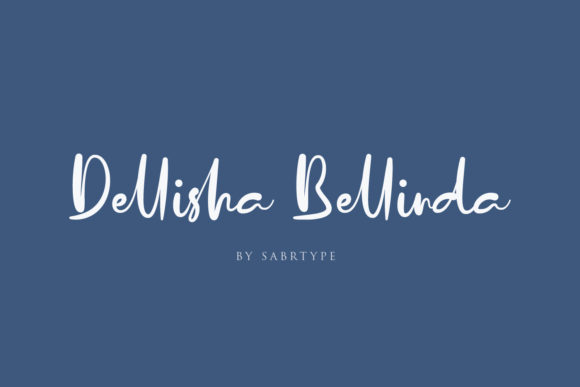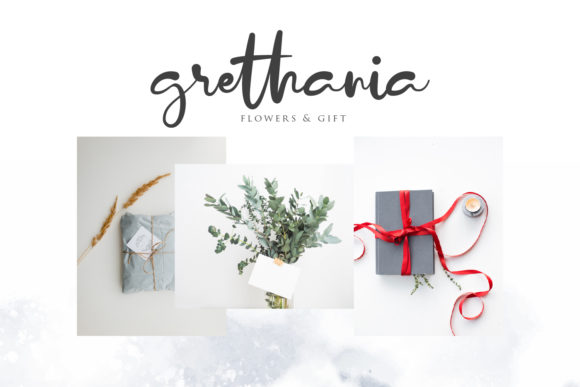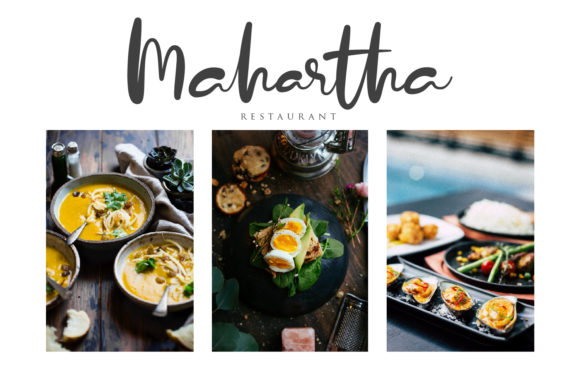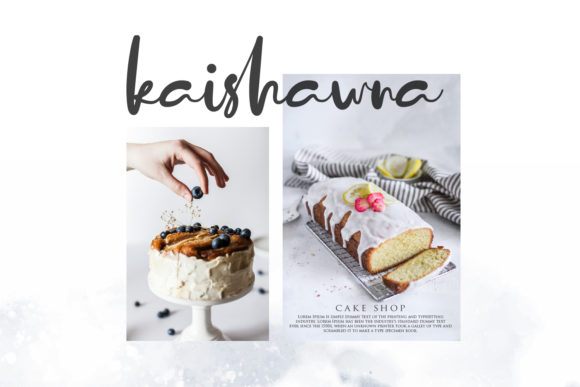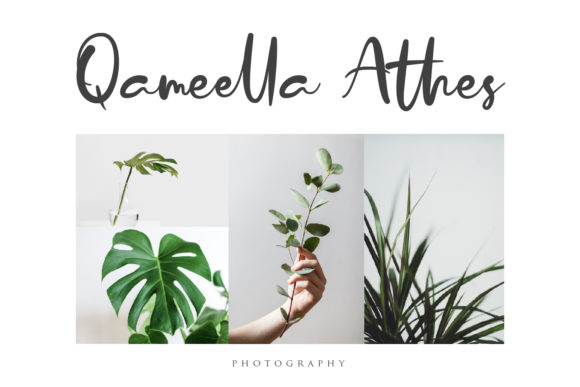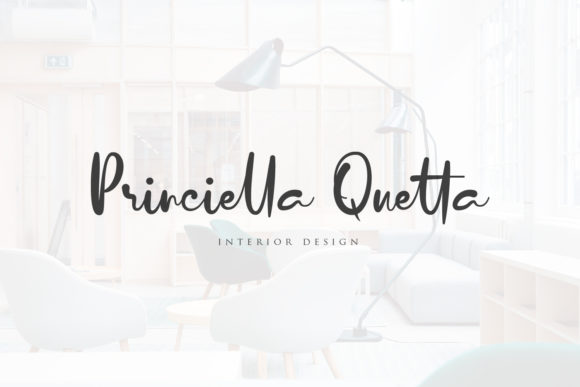
Introduction to Dalillah Font
Have you ever found yourself scrolling through design inspiration boards, pinning the perfect typography, and imagining how it would elevate your next creative project? This is exactly what happened to me when I stumbled upon the Dalillah Font. Its unique, handwritten charm instantly caught my eye, and I couldn’t wait to dive deeper into its features.
| 👤 Author | sabrcreative |
As designers, we’re always on the lookout for high-quality design resources that can take our work to the next level. The Dalillah Font is one such treasure, offering a transparent background and exceptional readability that makes it perfect for a wide range of applications, from logos and branding to invitations and advertisements.
With its free download and modern touch, the Dalillah Font is an invaluable addition to any designer’s toolkit. Whether you’re working on a creative project or simply looking to add some personality to your designs, this font is sure to impress.
Key Features of Dalillah Font
- High-quality, free download font perfect for creative projects and design resources.
- Unique, elegant script font with a transparent background, ideal for overlaying on images or videos.
- Designed for use in digital media, including websites, social media, and graphic design projects.
- Perfect for adding a touch of sophistication and elegance to any creative project or design resource.
Honest Review: Dalillah Font
I recently stumbled upon the Dalillah Font and I must say, it’s a great addition to any designer’s toolkit. One of the things that caught my eye was the high quality of the font, which is perfect for a creative project that requires a unique touch.
What works well with the Dalillah Font is its versatility. It can be used for a variety of design elements, from titles to body text, and it’s easy to customize to fit your specific needs. I also appreciate that it’s available for free download, making it a valuable resource for designers on a budget.
Here are some of the key features that make the Dalillah Font stand out:
- Transparent background, allowing for easy customization
- Perfect for creative projects that require a unique touch
Overall, I’m impressed with the Dalillah Font and would definitely recommend it to designers looking for a high-quality, free design resource.
Introduction to Dalillah Font
Dalillah Font is a high-quality, free download design resource ideal for creative projects. This versatile font features a transparent background, making it perfect for overlaying text on images or graphics.
Tips for Getting the Most Out of Dalillah Font
For the best results, use Dalillah Font on a high-contrast background to make the text stand out. Experiment with different font sizes and styles to achieve the desired effect.
Common Use Cases for Dalillah Font
Dalillah Font is ideal for use in creative projects such as graphic design, web design, and digital art. Its transparent background makes it perfect for overlaying text on images or graphics.